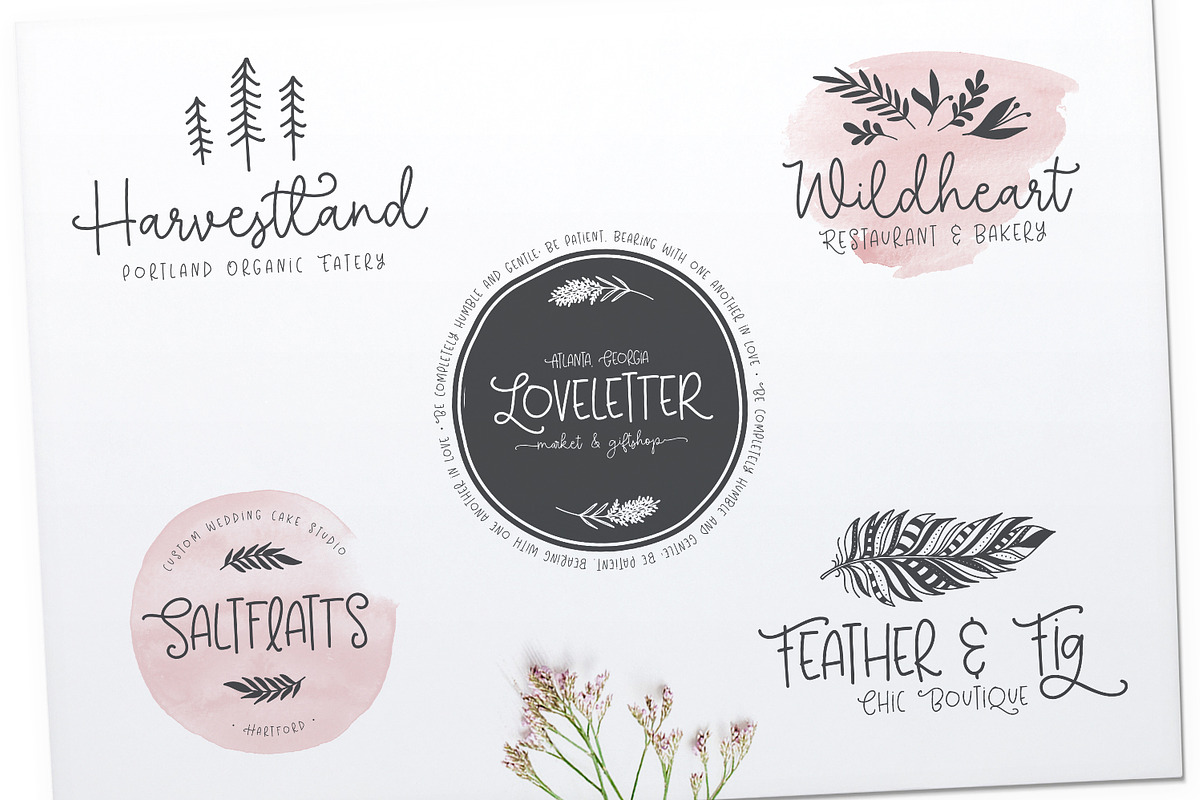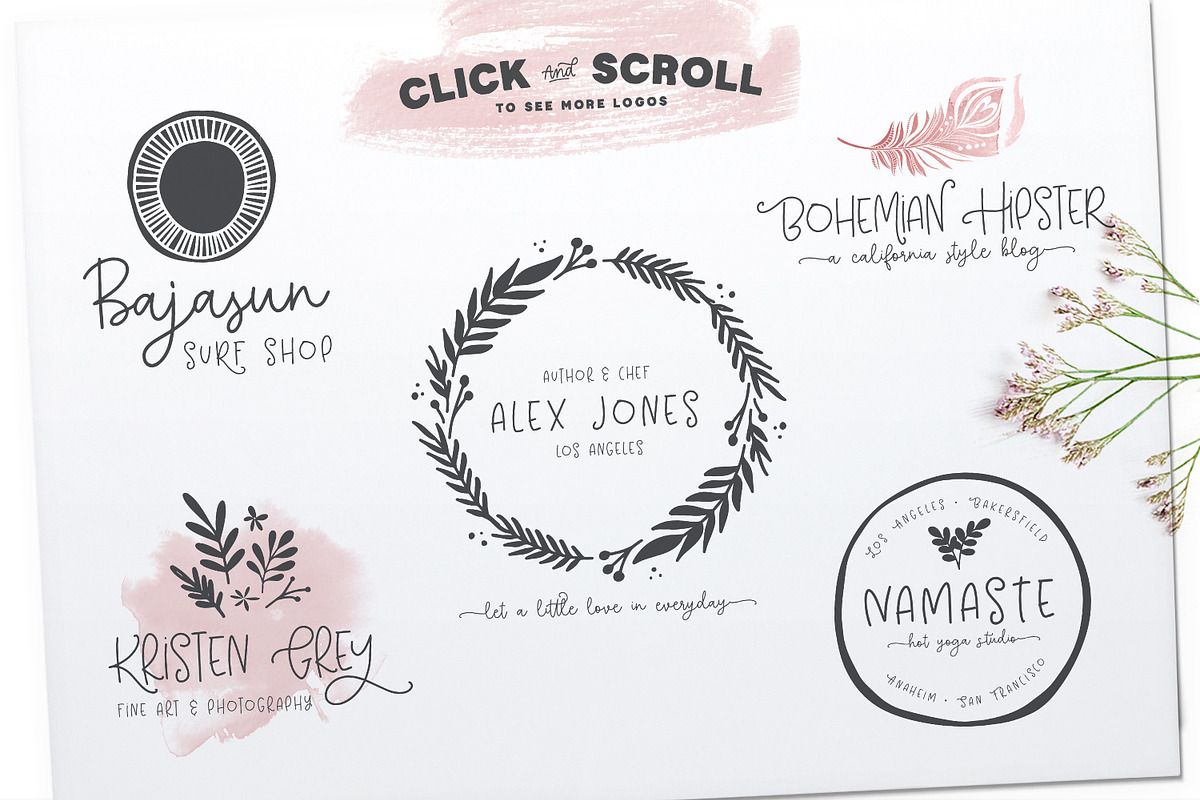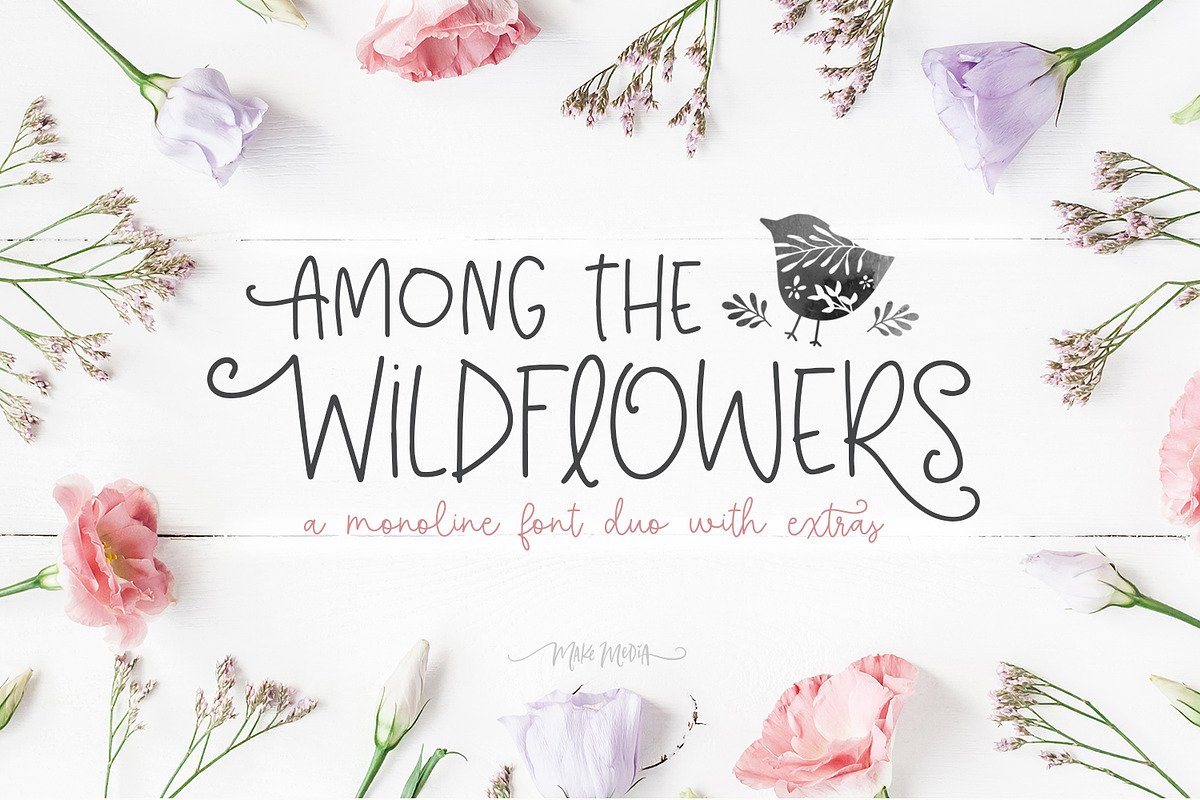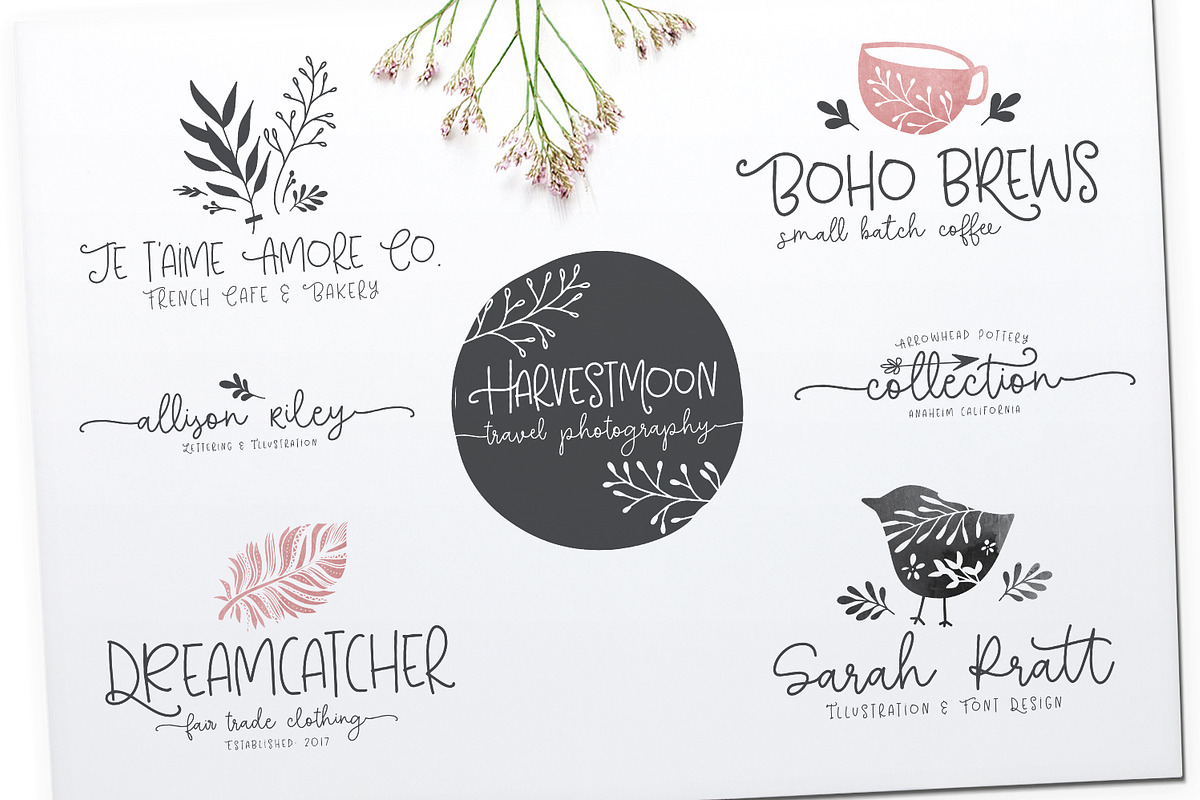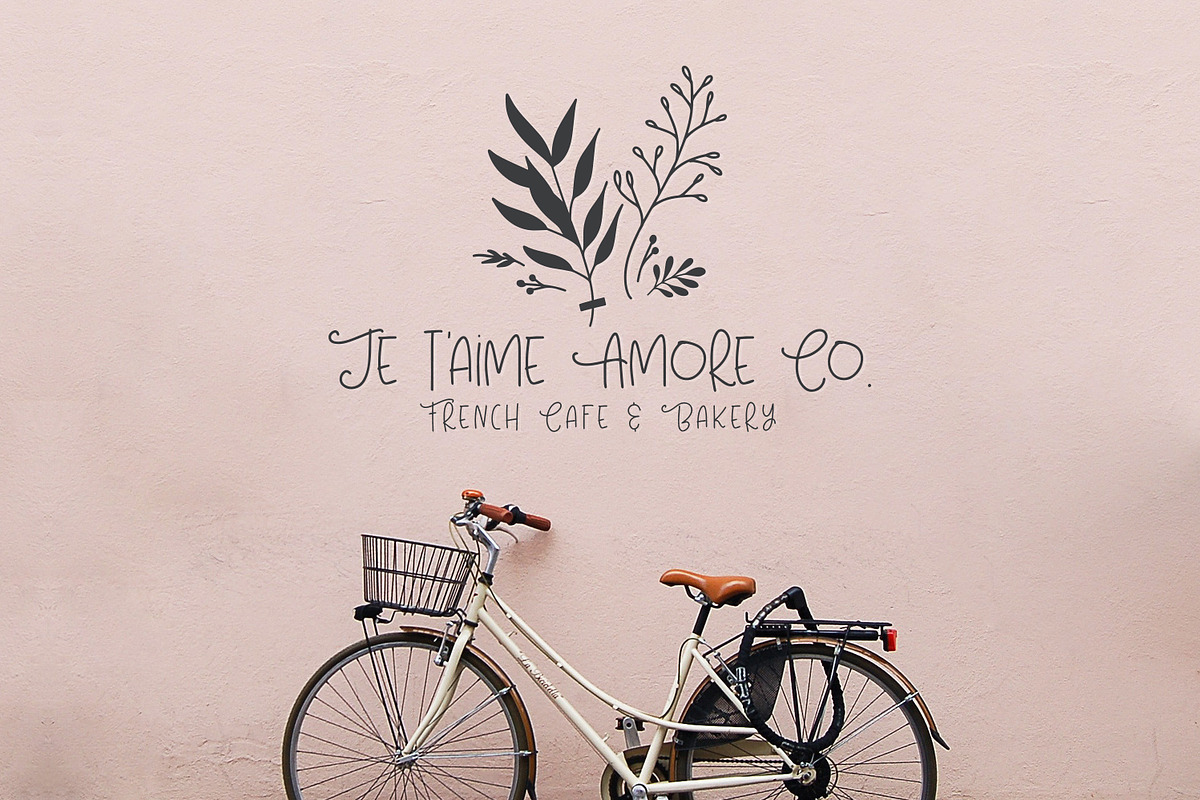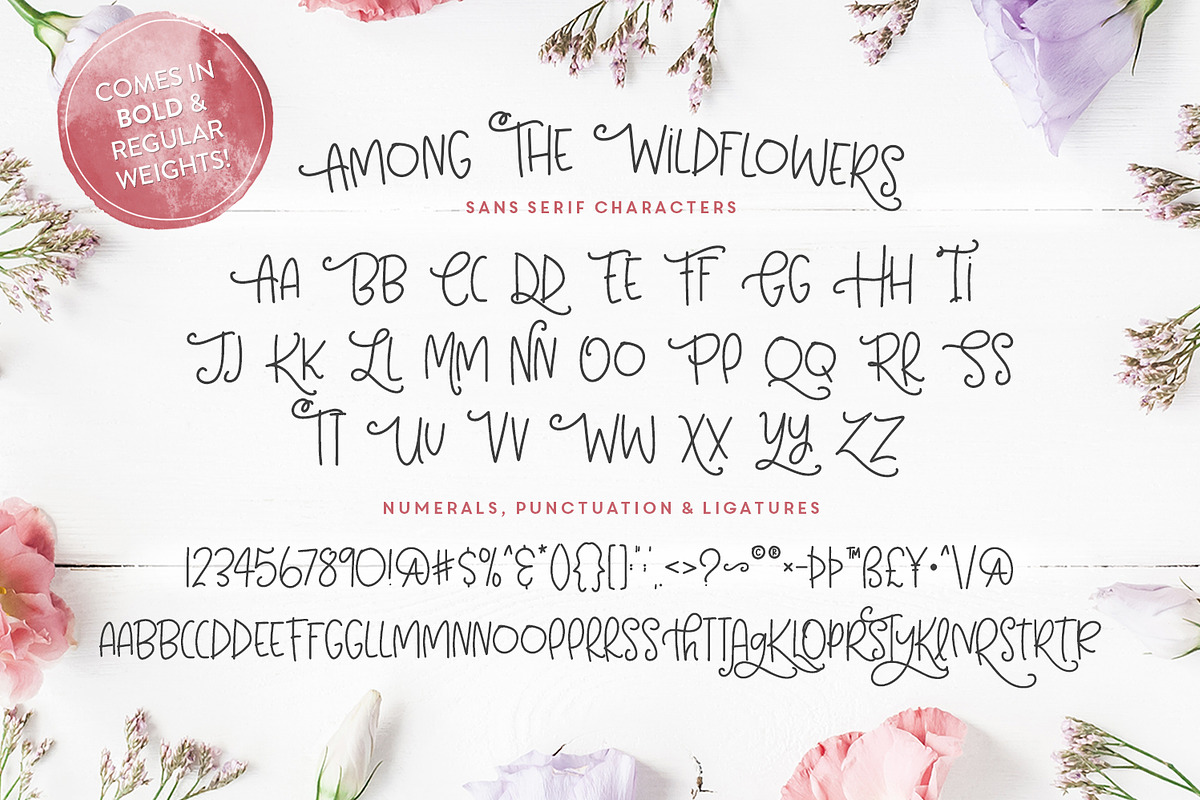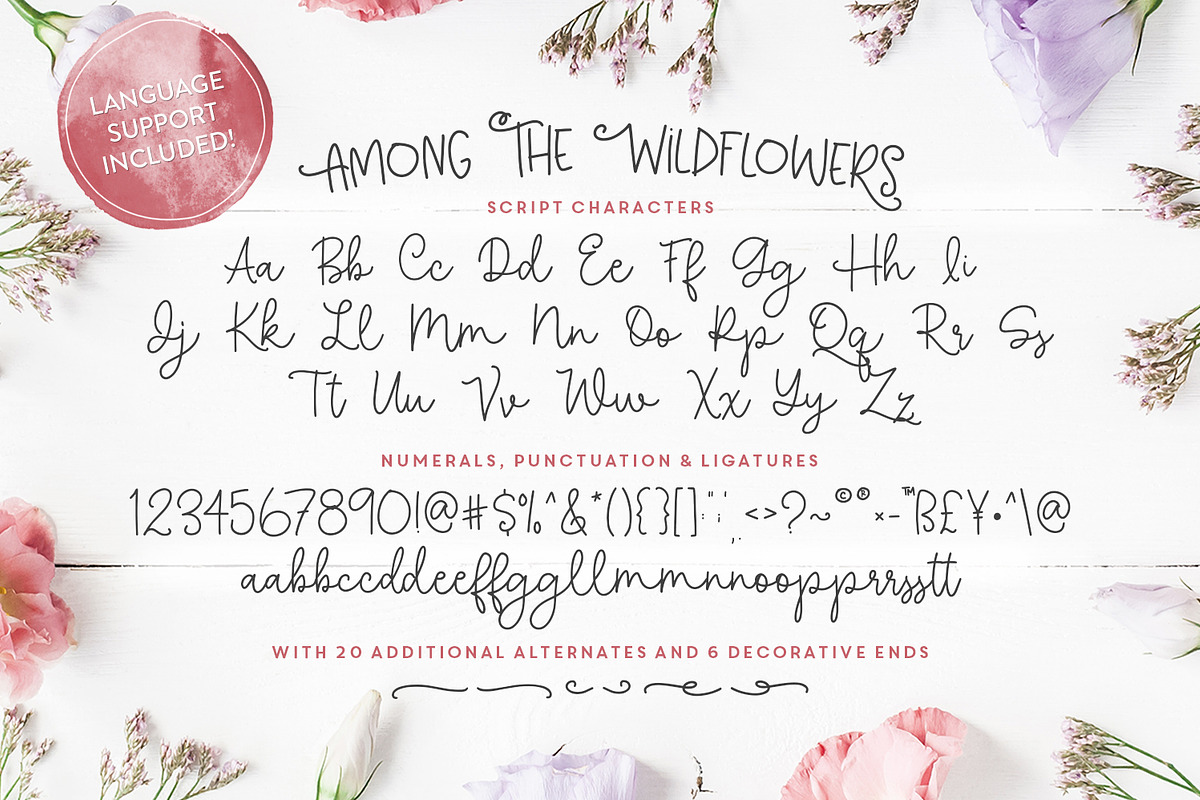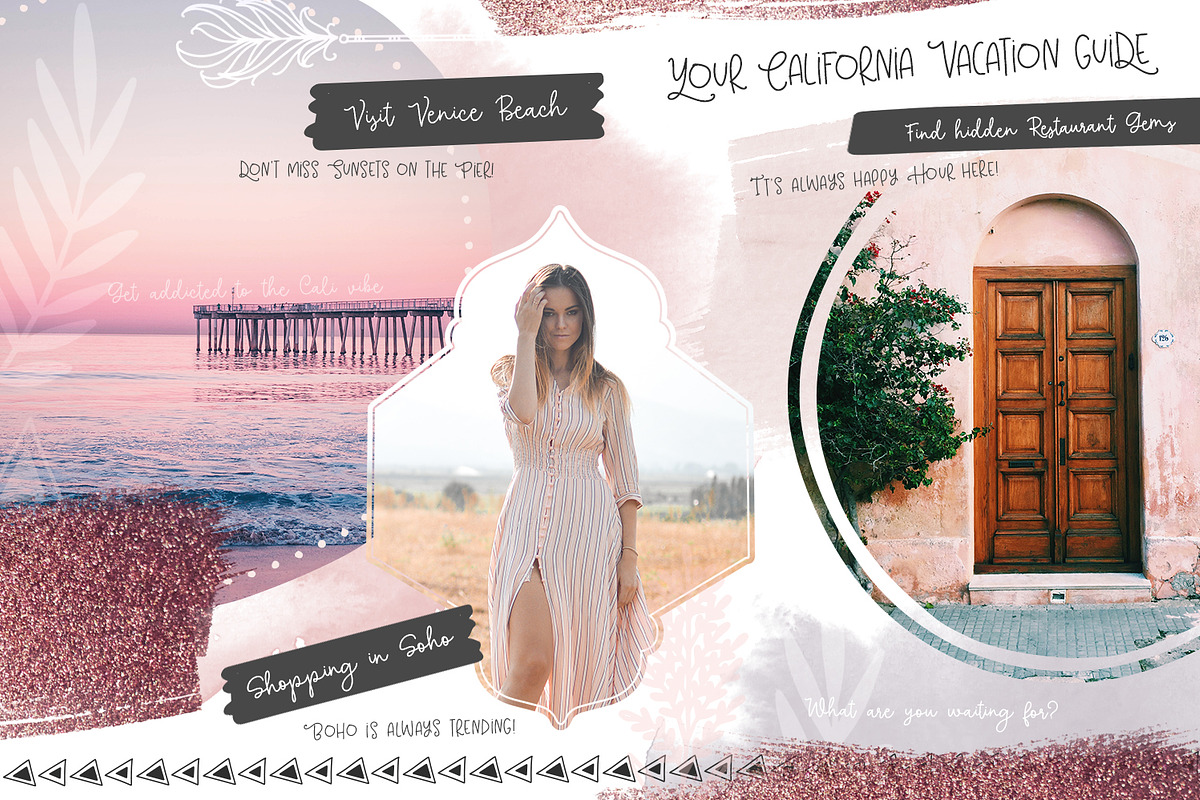
Among The Wildflowers | Font Duo
Introducing, Among The Wildflowers - Inspired by clean, monoline typography, decorative illustration, trendy pastels and minimalist branding, this set boasts two fonts, 46 logo templates, 200 hand drawn illustrations, 8 PNG watercolors, 12 overlays, and a whole lot of Bohemian flair. 🌸🌿
- Among The Wildflowers Script (OTF &TTF) Including 50 alternates and 6 decorative ends.
- Get inspired by the ready-made logos, or use the additional vector elements to create your own designs!
- Mix and match vectors, ligatures, alternates, overlays, ornaments, and watercolors to create your own masterpiece.